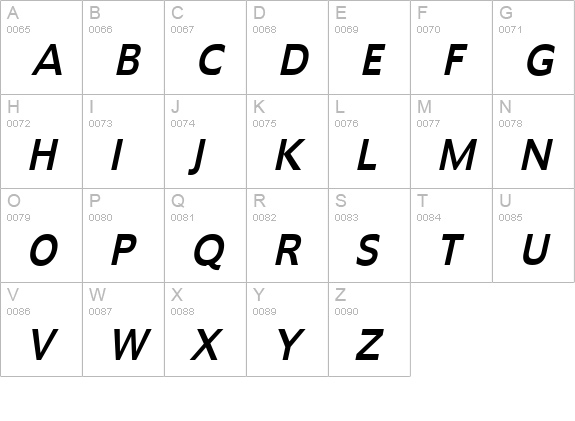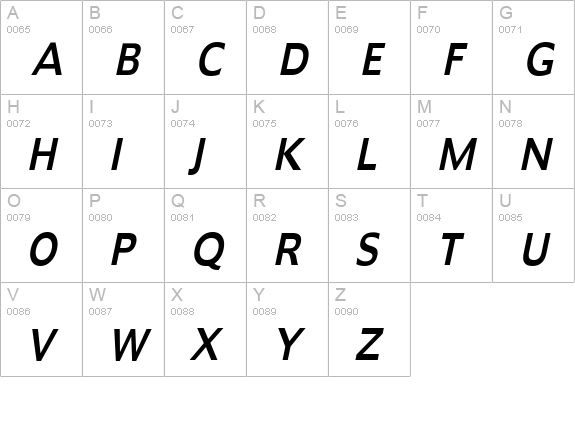
Adams Condensed Italic Font Details
Adams Condensed Italic is a distinctive, condensed-width, italic variant in the Adams typeface family \xE2\x80\x94 well suited to design and typography projects.
Adams Condensed Italic is a sleek and modern font that exudes elegance and sophistication. Its italicized form adds a touch of flair and style to any text, making it perfect for a wide range of design projects. The condensed design of this font allows for efficient use of space without compromising on readability. What sets Adams Condensed Italic apart is not only its aesthetic appeal but also its versatility. Whether you're designing a fashion magazine, creating sleek branding materials, or crafting a stylish website, this font will elevate your work to new heights. Best of all, Adams Condensed Italic is completely free to download at FontsMarket.com. This means you can access this exquisite font without any cost, making it a valuable addition to your font library. Don't miss out on the opportunity to enhance your designs with the beauty and sophistication of Adams Condensed Italic.